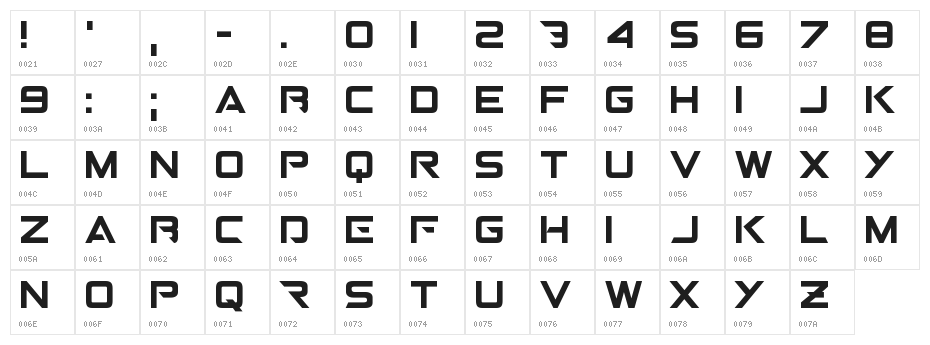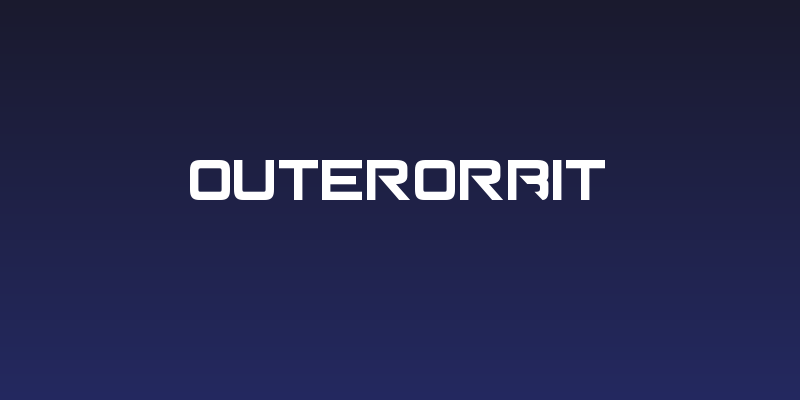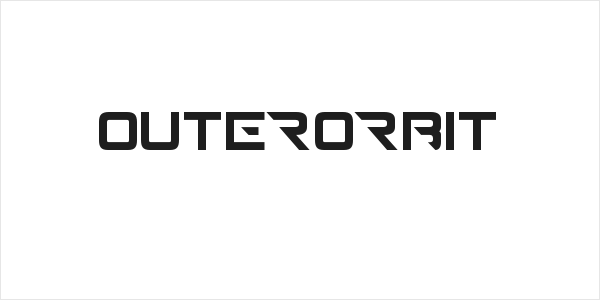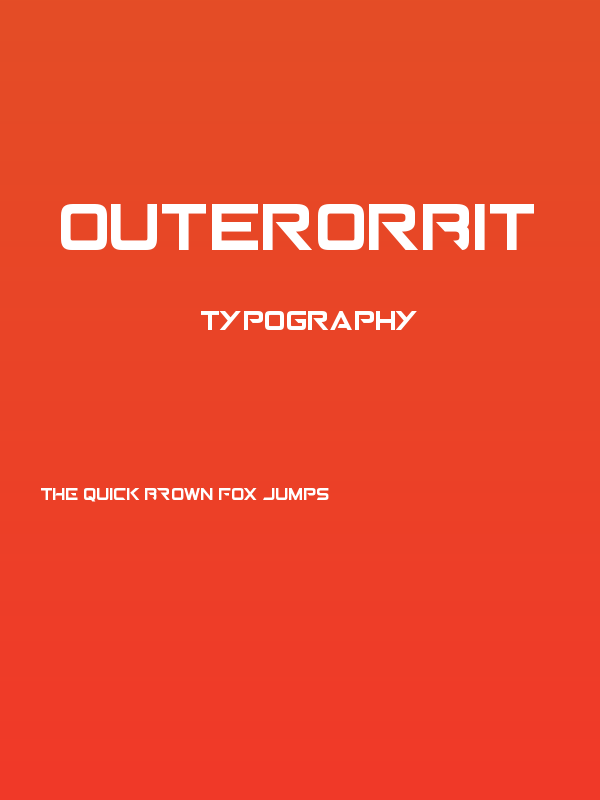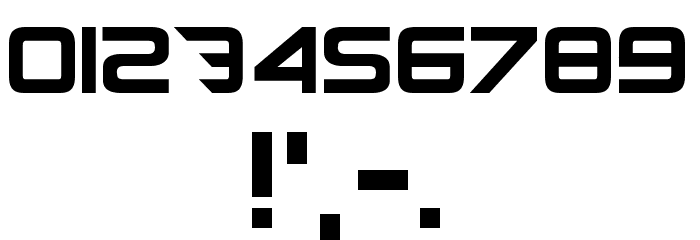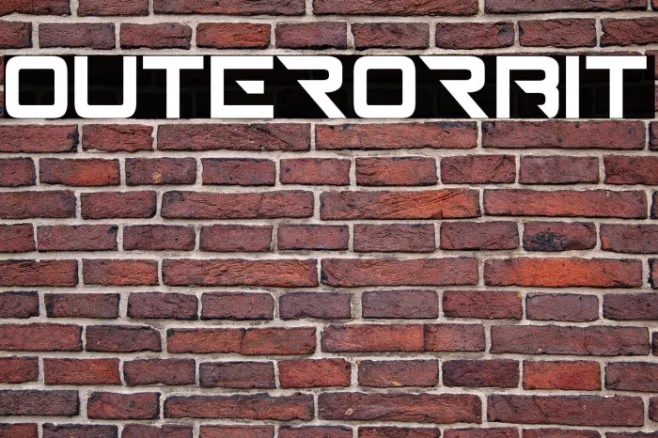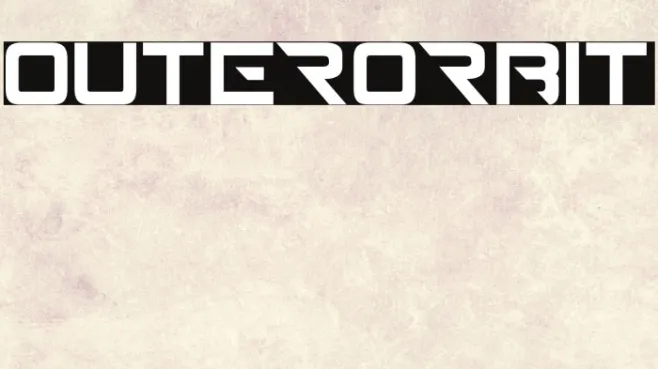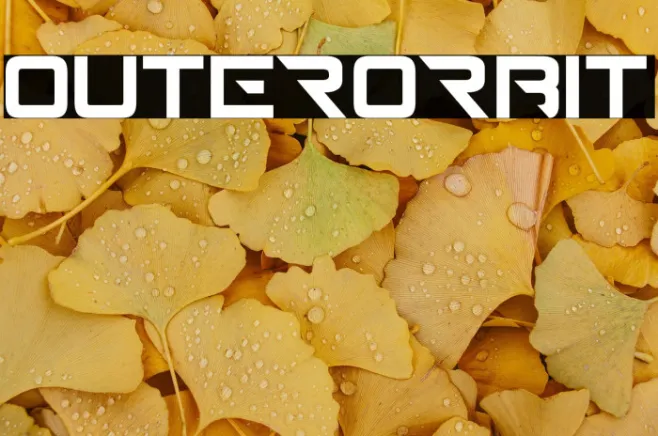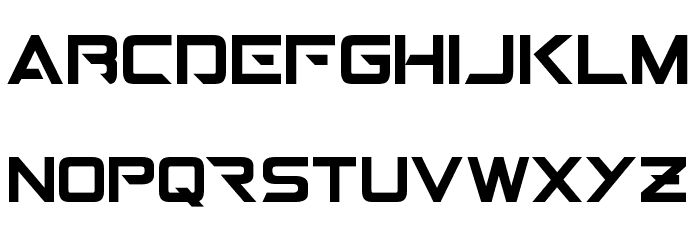
outerorbit Font
outerorbit Description
This font features a futuristic and geometric design, characterized by bold, angular lines and a strong presence. The uppercase letters are uniform in height, with sharp edges and a distinct, modern aesthetic. The numbers follow the same design principles, ensuring consistency throughout. Special characters are crafted with the same attention to detail, maintaining the overall style. The font's unique appearance makes it suitable for projects that require a modern and tech-savvy look.
| Proposed Projects | Ideal for technology branding, sci-fi movie posters, video game titles, and modern digital interfaces. |